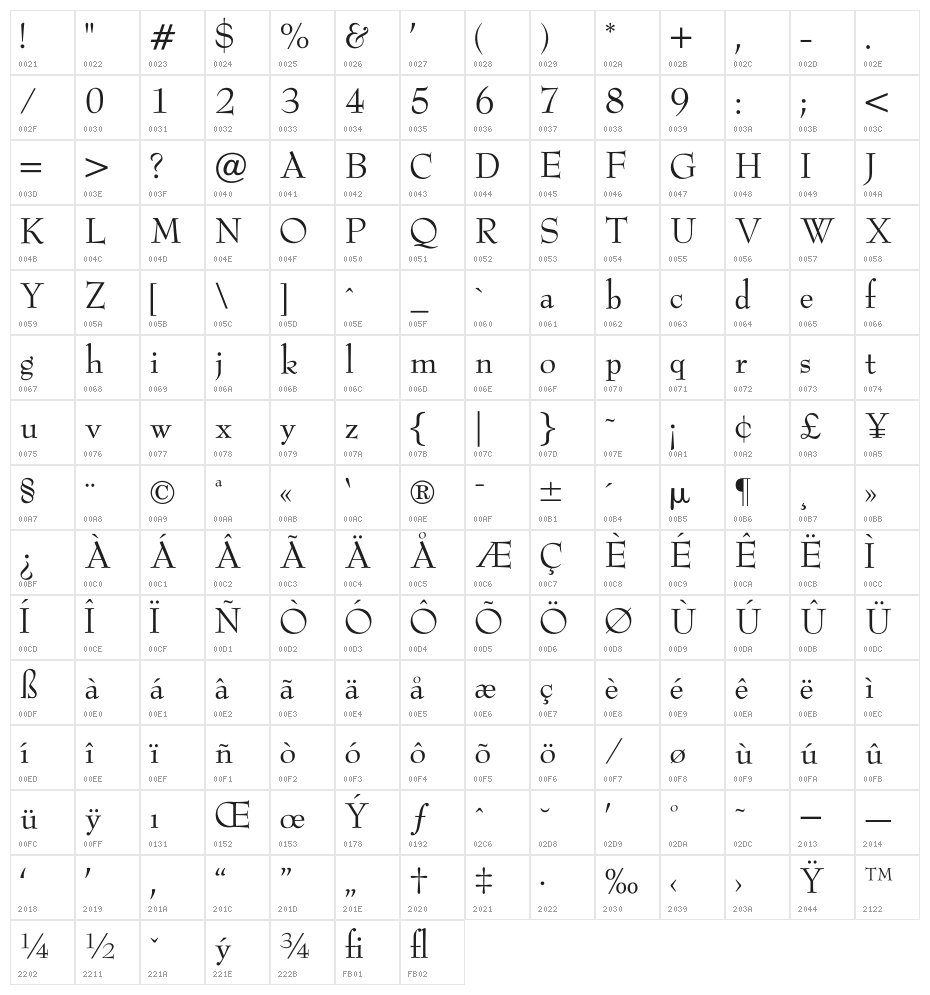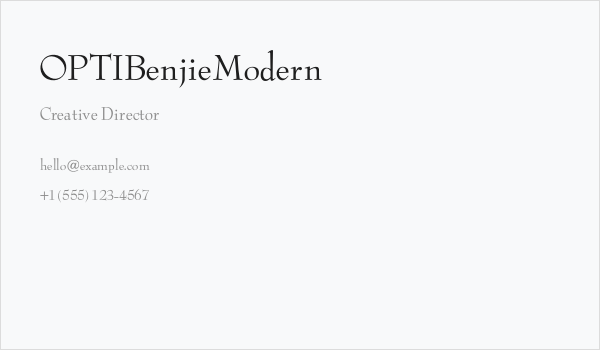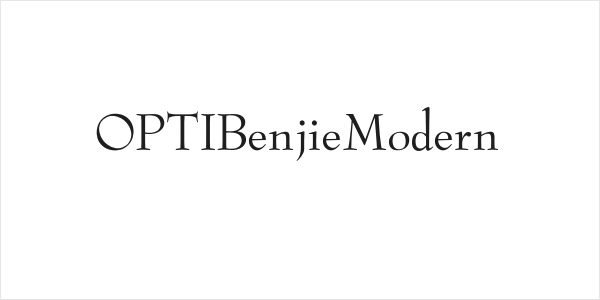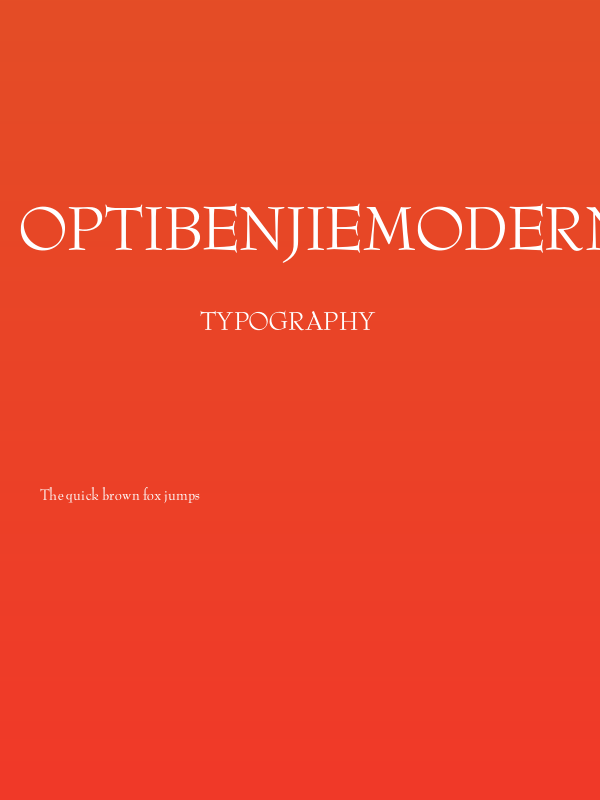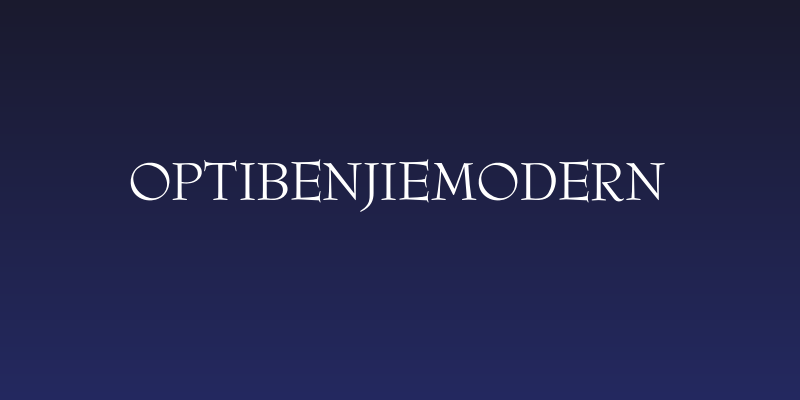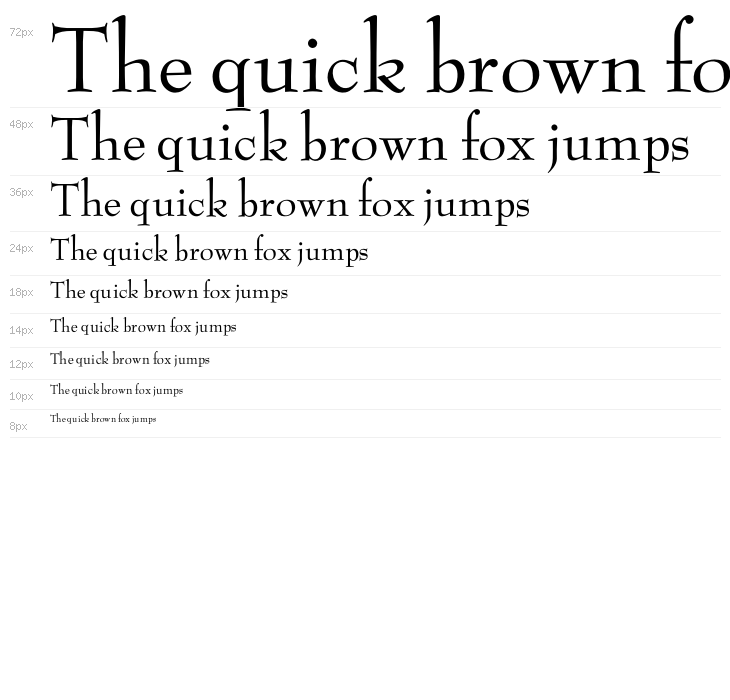
OPTIBenjieModern Font
OPTIBenjieModern Description
This typeface features a classic serif design with a modern twist, characterized by its sharp, pointed serifs and elegant curves. The uppercase letters exhibit a strong presence with a balanced weight, while the lowercase letters maintain a graceful flow, enhancing readability. The numerals are distinct and clear, making them suitable for various applications. Special characters are well-crafted, adding versatility to the font's use. The overall design combines traditional serif elements with contemporary styling, making it suitable for both formal and creative projects.
| Proposed Projects | Ideal for editorial design, branding, book covers, and elegant invitations. |